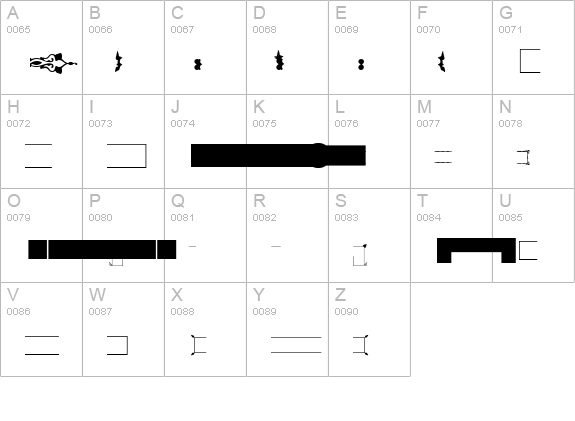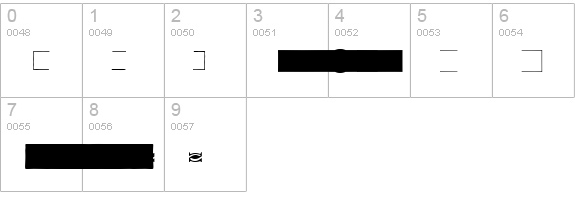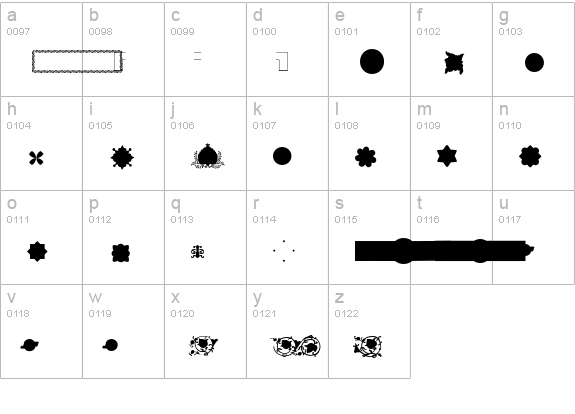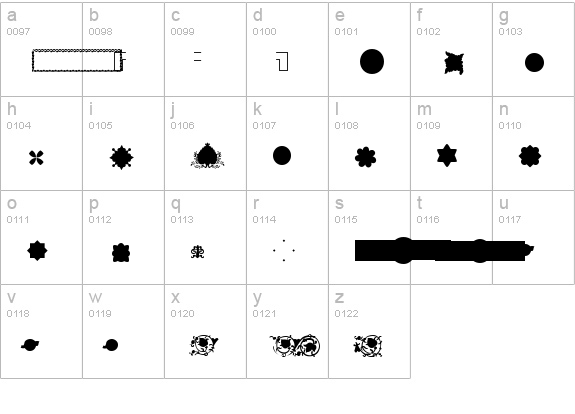
PFOrnmTreasures2-Layer1 font is a stunning and intricate typeface that is sure to add a touch of elegance to any design project. This ornate font features beautiful flourishes and delicate details that make it perfect for creating eye-catching and sophisticated designs. Whether you're working on invitations, posters, or branding materials, PFOrnmTreasures2-Layer1 font is sure to make a statement. The best part is that this font is available for free download at FontsMarket.com. So you can add this gorgeous typeface to your collection without having to spend a dime. Don't miss out on the opportunity to enhance your designs with the beauty of PFOrnmTreasures2-Layer1 font - download it today and let your creativity soar!